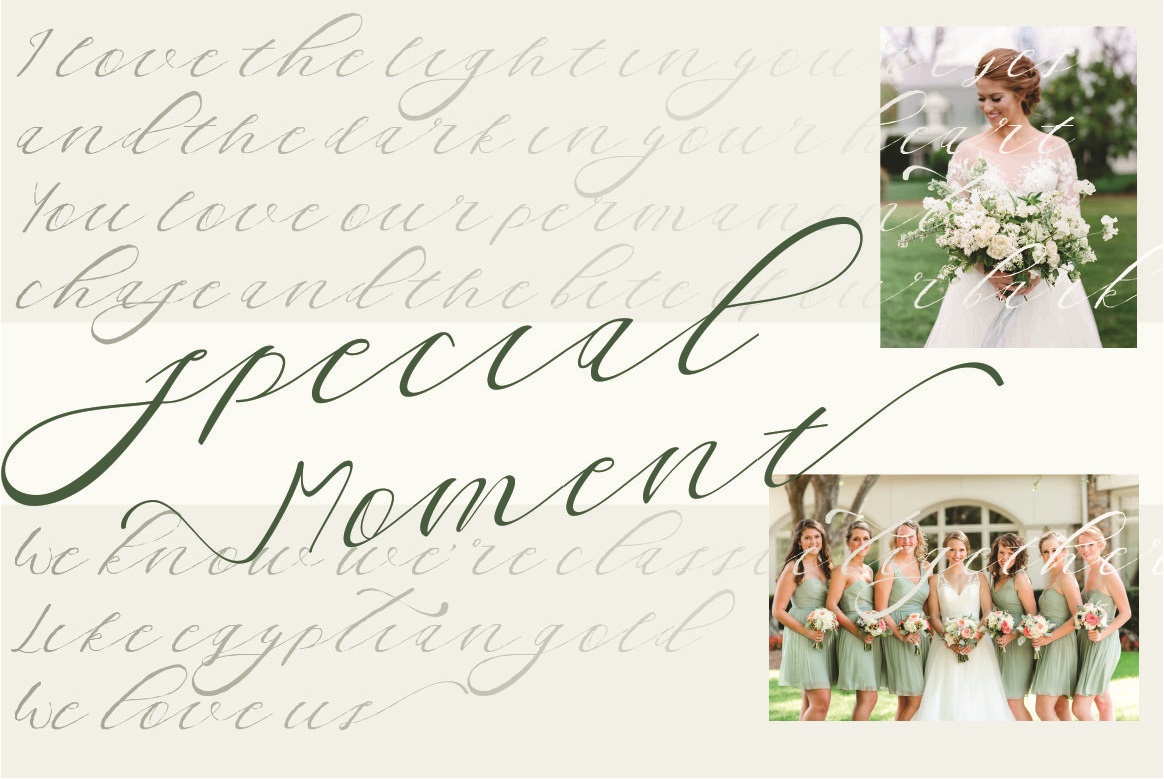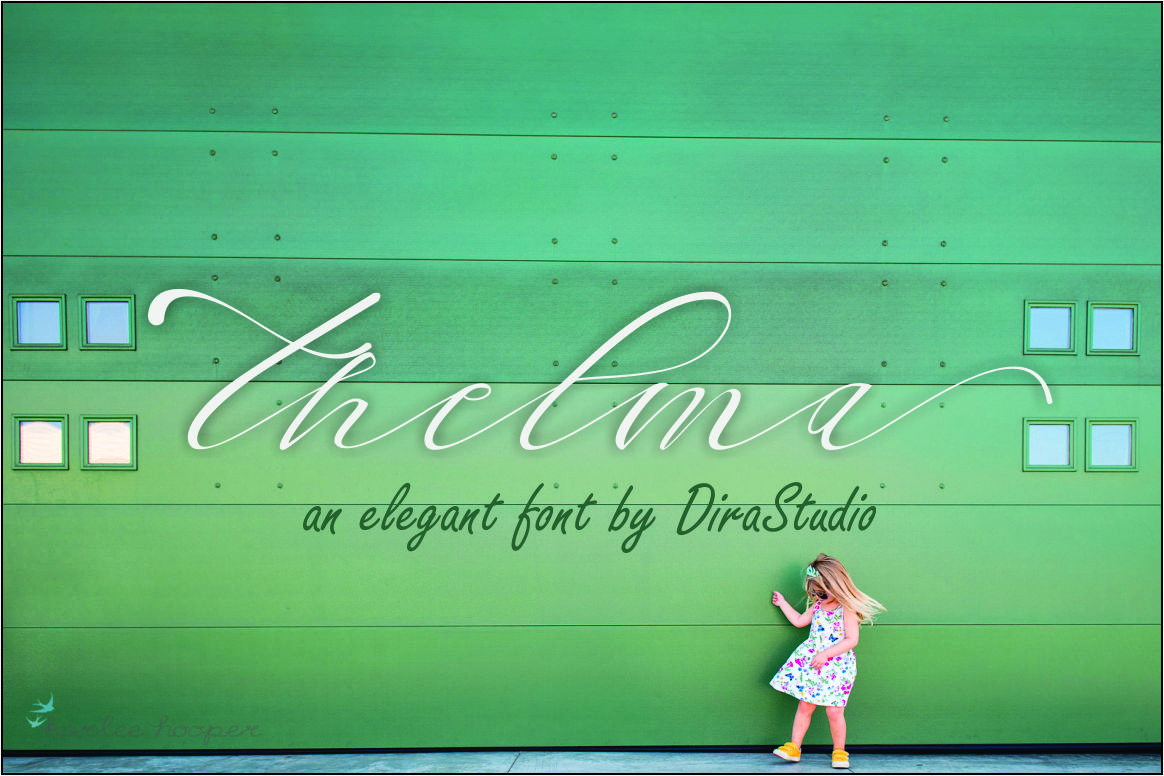
Thelma Script
Thelma Script Font
Thelma is a new fresh font with lovely, elegant, and modern touch. The designer make the style balance to each font. It also have some alternative for the small letters , beginning and ending of letters . Thelma can be used for invitation card, heading, blog, logo, signature, poster, name card, etc.